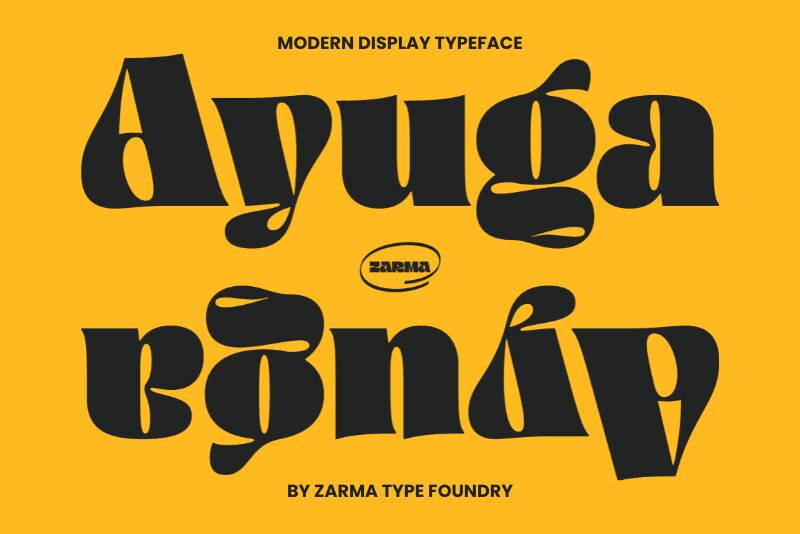
Ayuga emerges from the creative vision of Zarma Type Foundry as a bold display font that exudes a groovy flair. Its voluptuous curves and playful loops give it a dynamic, retro vibe that harkens back to the expressive typography of the '60s and '70s. The font's generous proportions make it an excellent choice for impactful headlines, while its distinctive character shapes ensure high visibility and memorability.
In terms of usage, Ayuga is perfectly suited for branding projects, poster designs, editorial spreads, or any application where a touch of vintage charm is desired. This font has the power to infuse personality into your design work, making it ideal for industries that value creativity and energy in their visual communication.